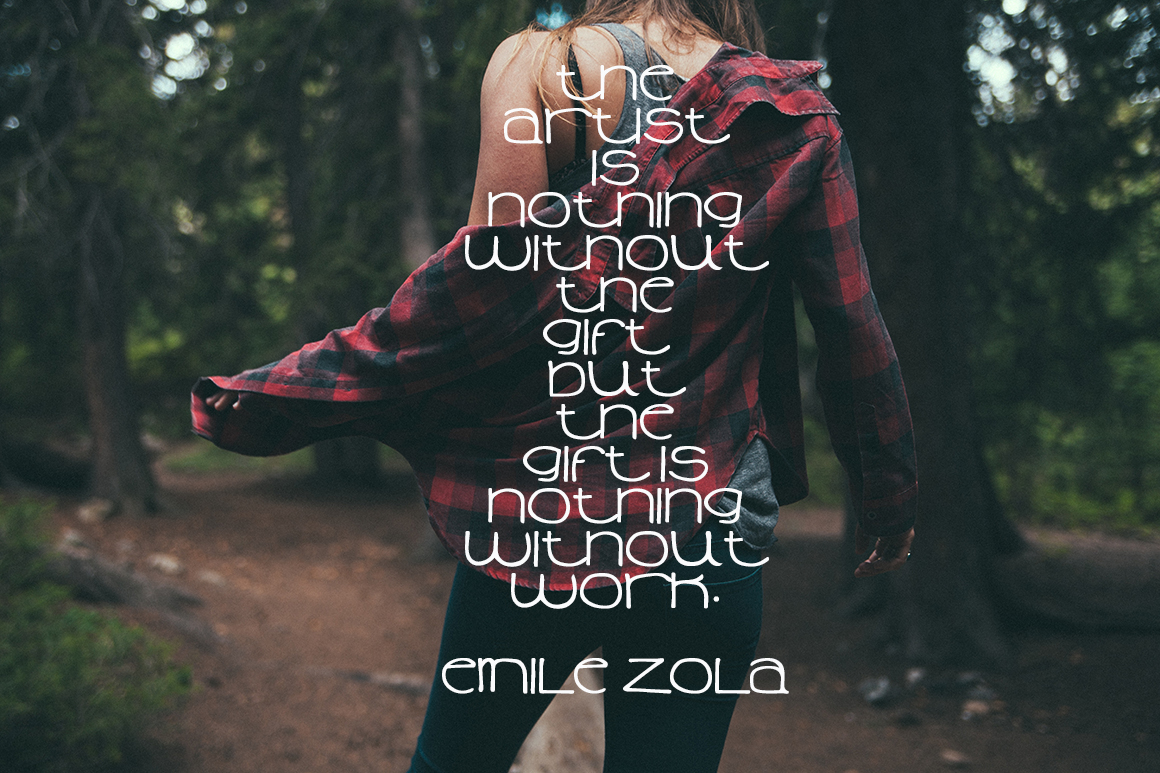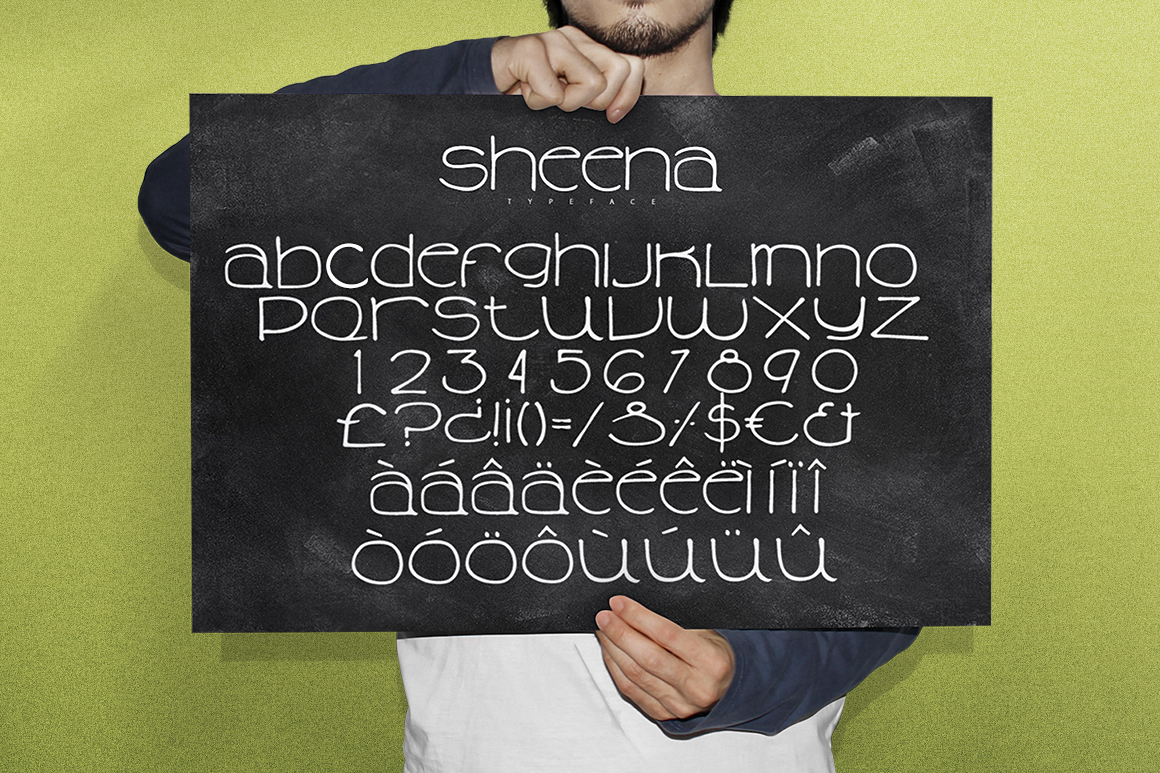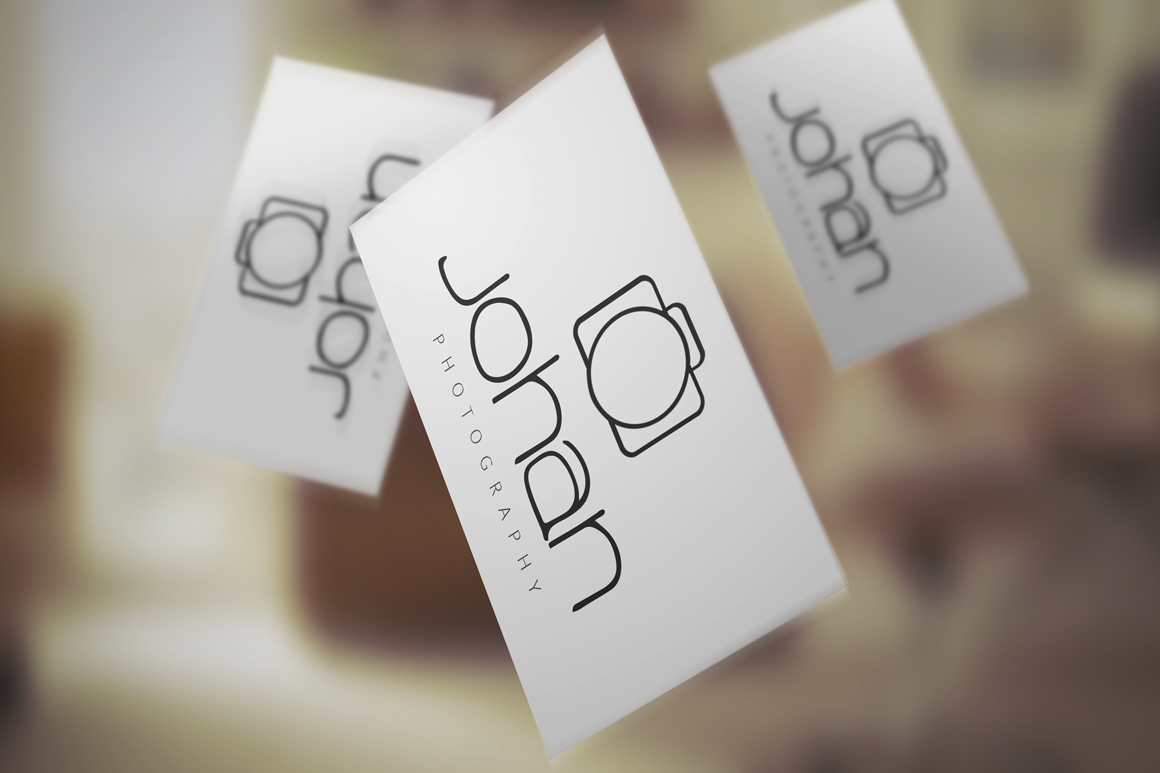
Introduction to Sheena Font
Sheena is a professional looking handmade font.
This font has a very easy going and natural feeling Great for creating professional design that needs to have a playful touch without losing itโ€™s professionalism.